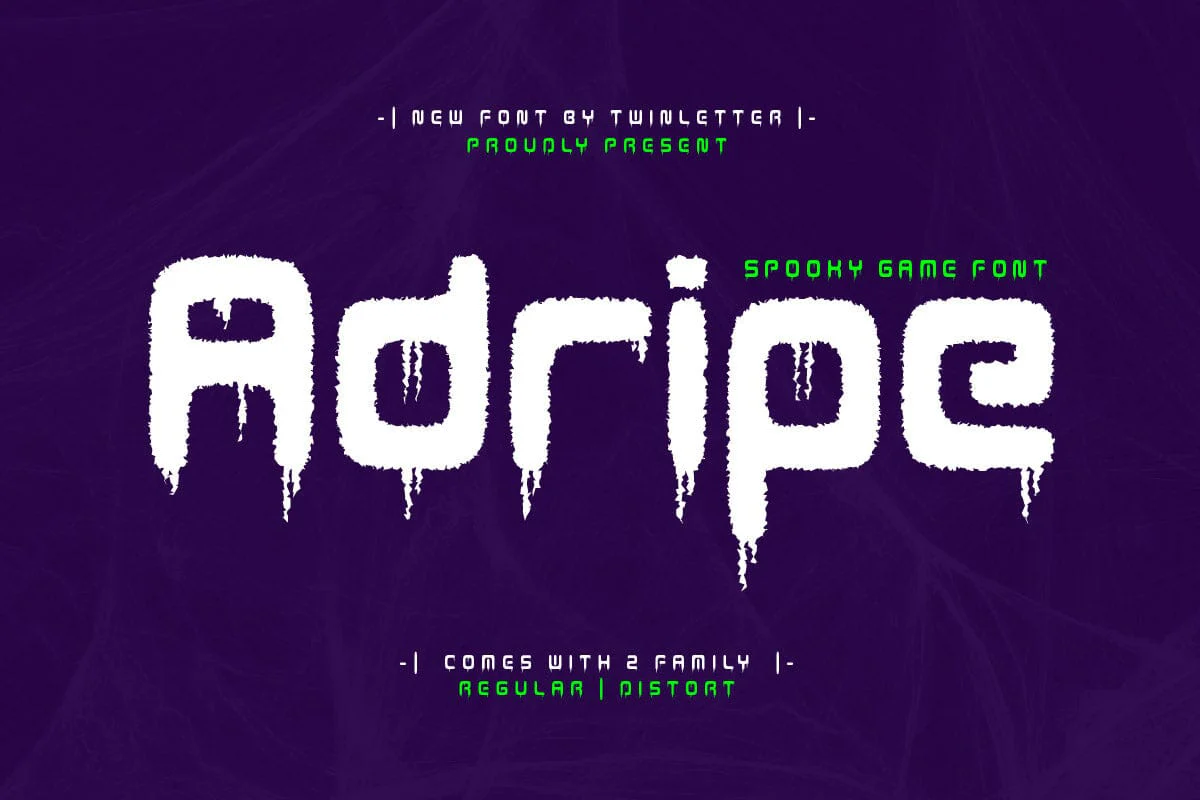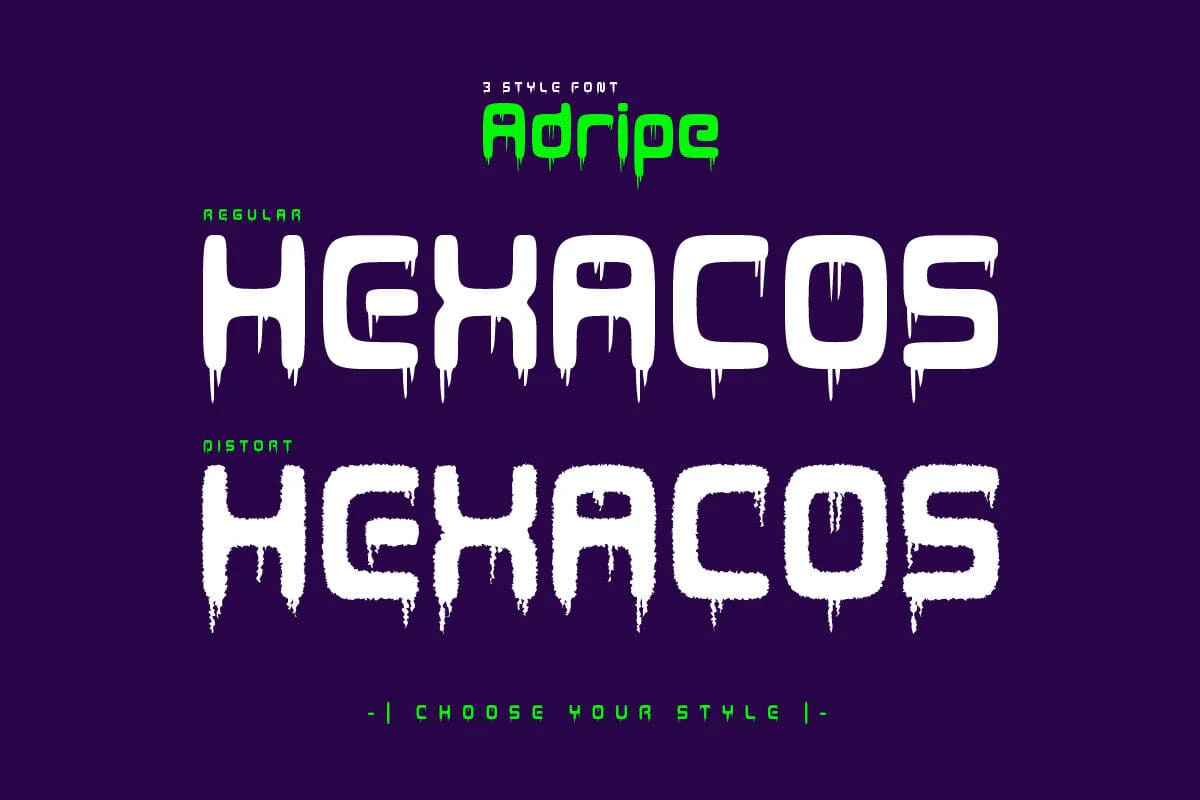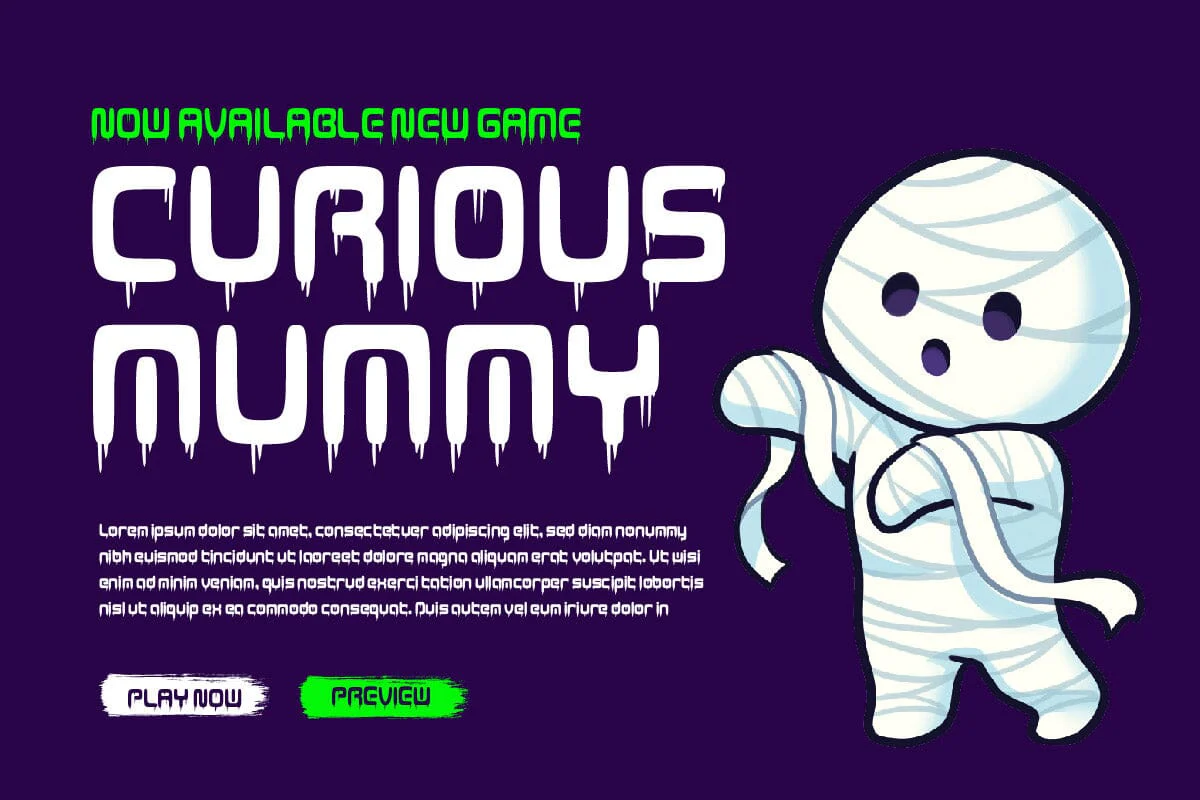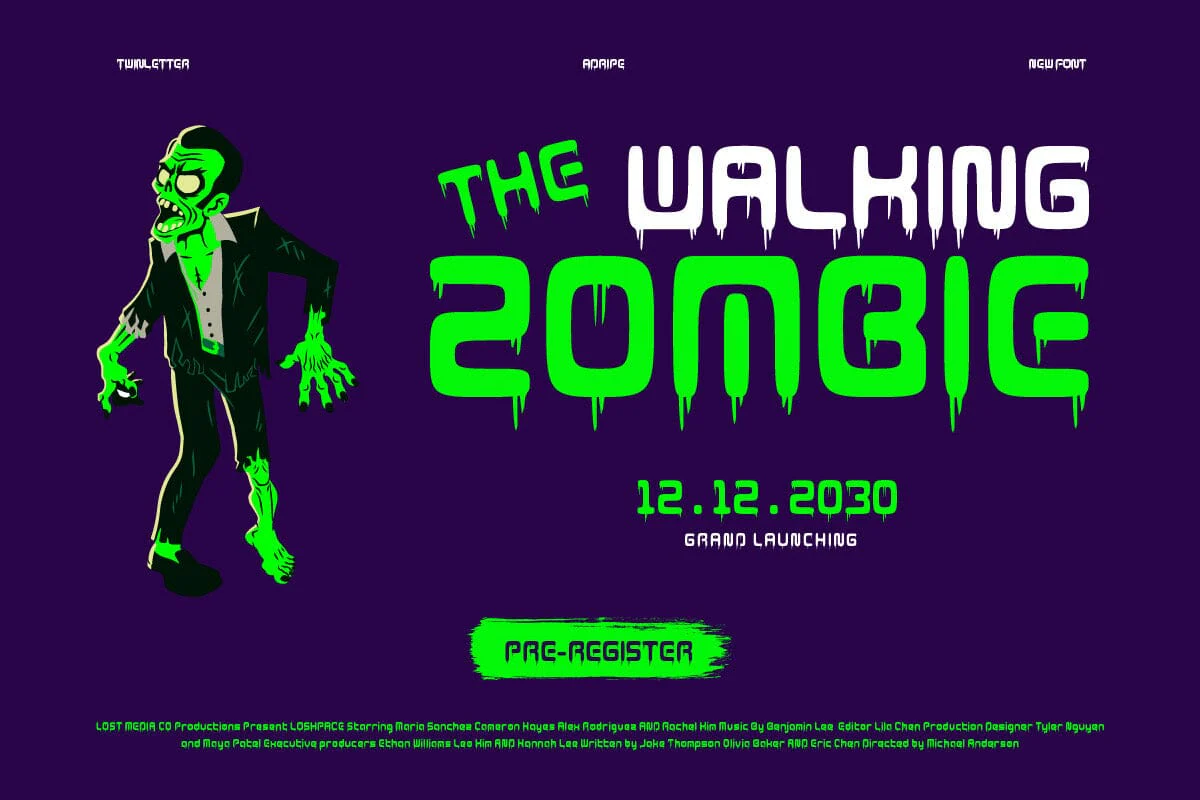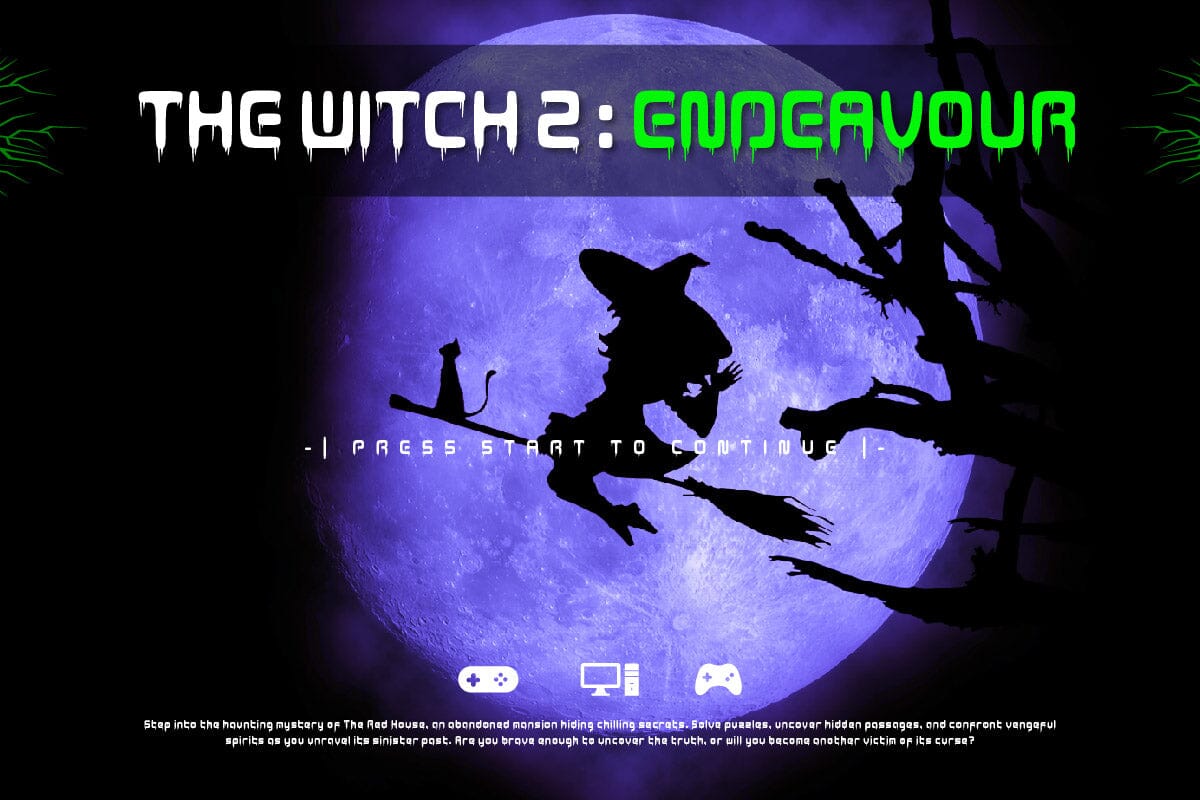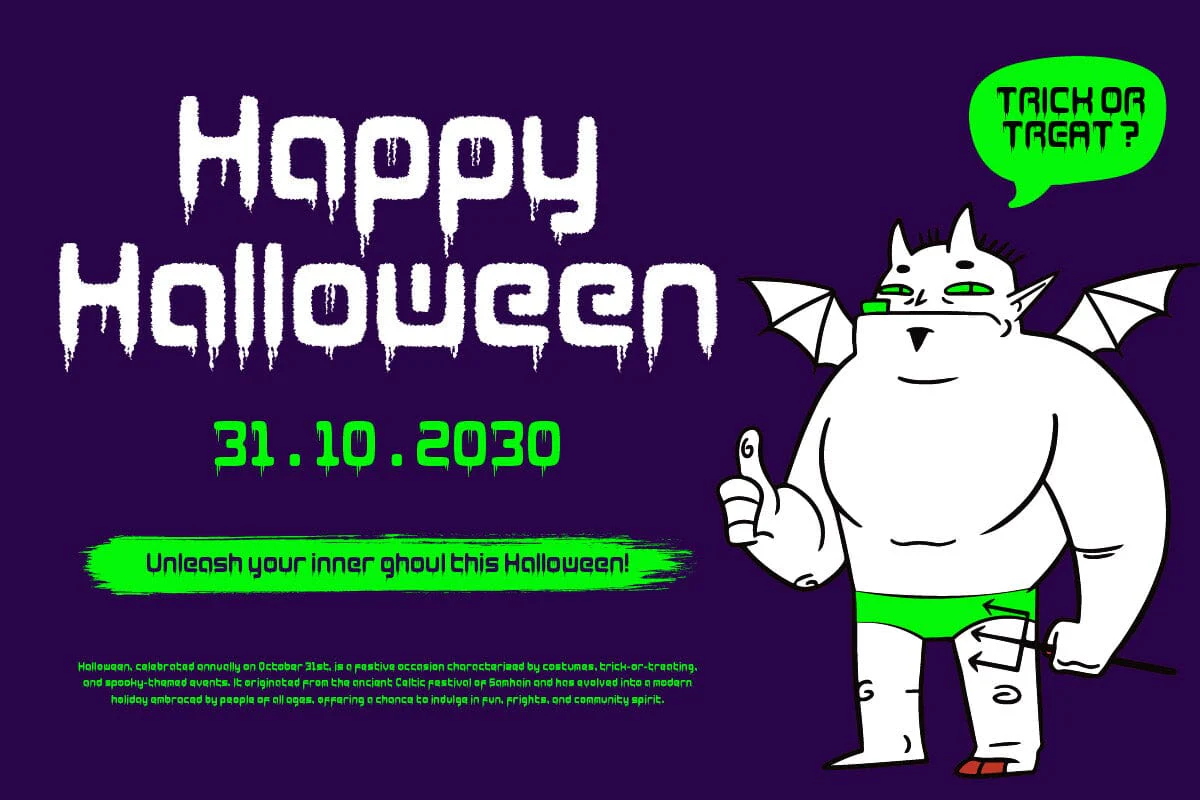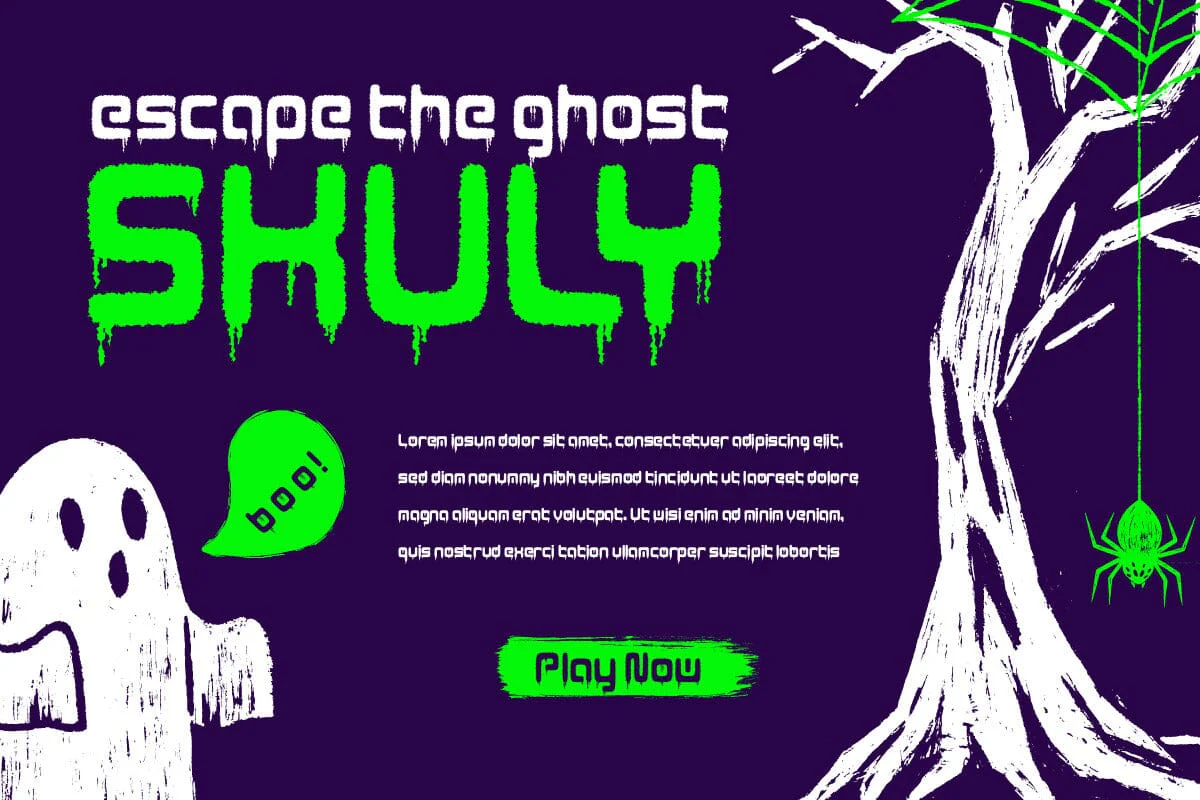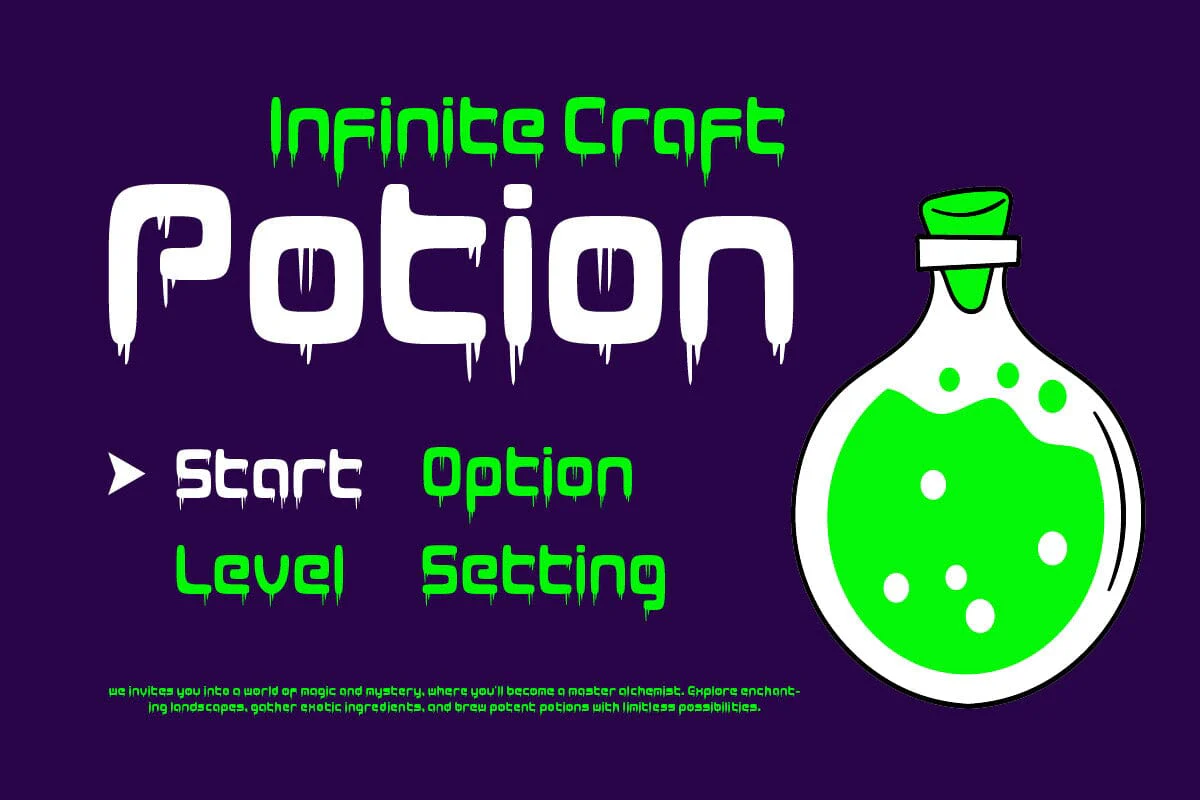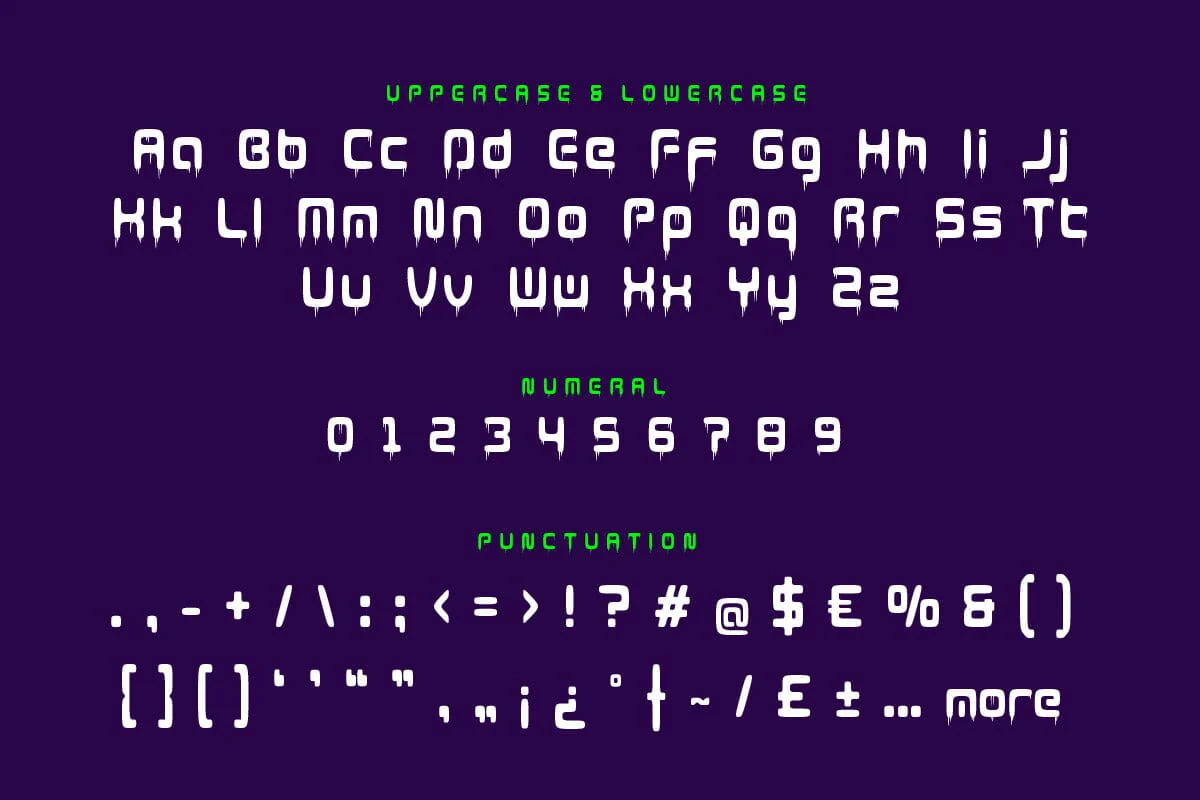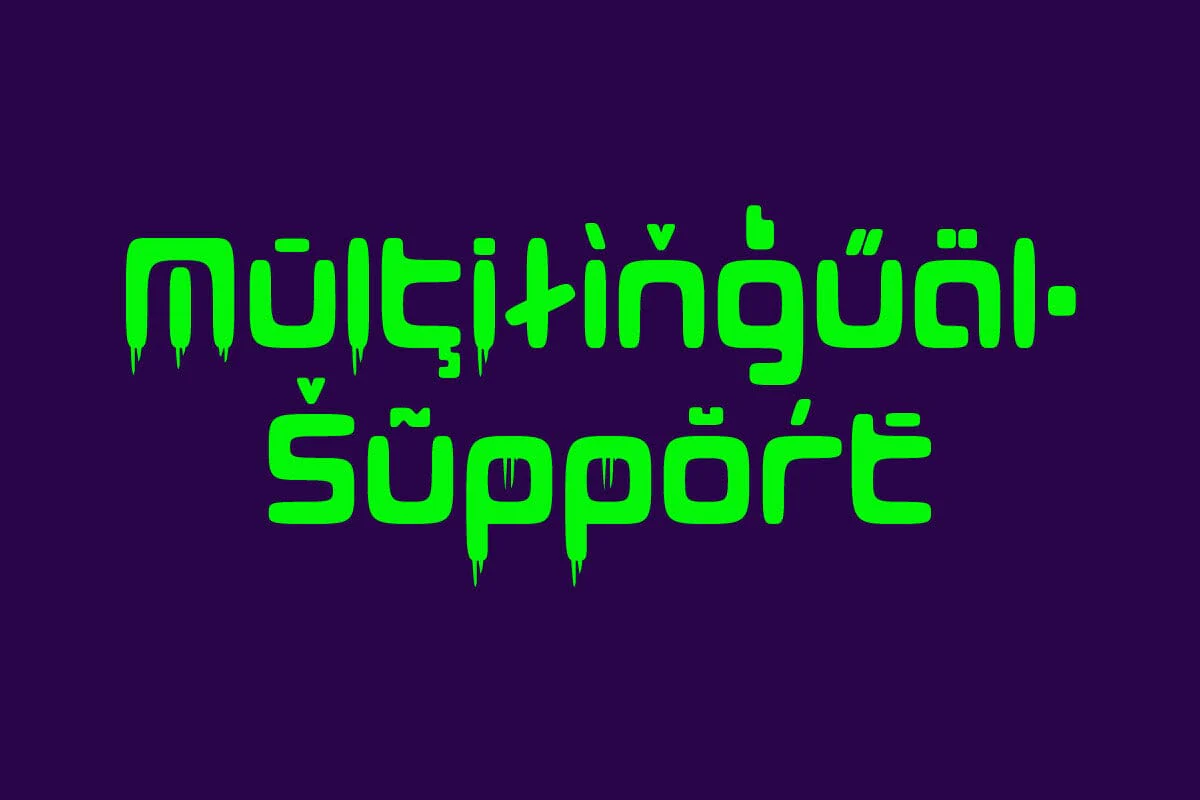
Adripe - Spooky Game Font
Adripe is a spooky game font that brings a touch of the supernatural to your game designs. Its eerie, unsettling characters are perfect for creating an immersive gaming experience that will keep players on the edge of their seats. But Adripe is more than just a font, it’s a way to create an atmosphere of mystery and intrigue. With Adripe, your game won’t just be played, it will be experienced. It’s like a shadow in the dark, mysterious and chilling, perfect for horror games or any game where suspense is key.